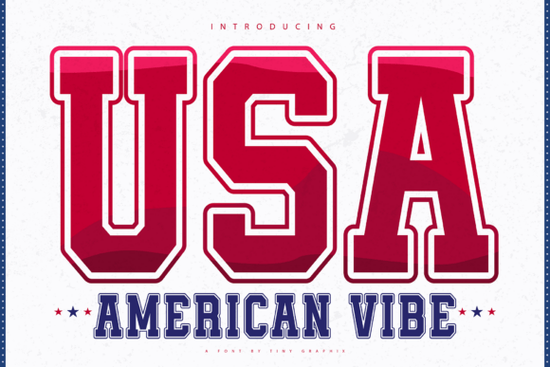
Looking for a typeface that screams red, white, and blue? American Vibe Font is a bold display typeface built for patriotic designs, Independence Day graphics, and Americana-themed projects. It blends collegiate athletic styling with festive holiday energy, giving your headlines the kind of punch that makes people stop scrolling. If you create designs for the 4th of July, sell patriotic apparel, or work on USA-themed branding, this font deserves a closer look.
What makes American Vibe Font different from other patriotic fonts?
A lot of display fonts try to capture a "patriotic" feel but end up looking generic. American Vibe takes a different approach by pulling from collegiate sports lettering and classic Americana signage. The result is a typeface that feels strong, nostalgic, and unmistakably American without being cartoonish.
The bold weight and wide letterforms make it ideal for:
- Headlines and hero text on posters or banners
- 4th of July t-shirt designs and apparel graphics
- Social media posts celebrating national holidays
- Event flyers for community celebrations or parades
- Print-on-demand products targeting patriotic audiences
If you're familiar with display fonts like Bold Super Font, you already know how much impact a heavy, confident typeface can add to a design. American Vibe carries that same energy but channels it through a distinctly American lens.
Who should use this font?
This typeface is a solid pick for a wide range of creatives:
Print-on-demand sellers Patriotic designs sell year-round, but they absolutely peak around Memorial Day, July 4th, Veterans Day, and election season. Having a reliable go-to font like American Vibe in your toolkit saves time and helps you produce designs that actually convert.
Small business owners If you run a local business in the U.S. and want to show community pride in your branding or seasonal promotions, this font gives your materials a professional, spirited look.
Crafters and hobbyists Making shirts for a family barbecue, decorations for a school event, or scrapbook pages for a summer celebration? American Vibe works beautifully for Cricut and Silhouette projects thanks to its clean, bold shapes.
Graphic designers Whether you're working on client projects or building your own design library, having a strong patriotic display font on hand means you're always ready when a relevant brief comes in.
American Vibe stands apart because it serves a very specific niche. It's not trying to be everything. It's designed for patriotic and Americana projects, and it does that job extremely well. That focus is actually an advantage when a client or customer sees the font, they immediately understand the theme.
What design styles pair well with American Vibe?
Since this is a bold display font, it works best for large text headlines, titles, and short phrases. For body copy or smaller text, pair it with a clean sans-serif or a simple serif font to keep things readable.
Design styles that complement American Vibe include:
- Distressed vintage looks Add a grunge texture overlay for a worn, retro Americana feel.
- Star and stripe motifs Classic patriotic elements pair naturally with this typeface.
- Wood and barn wood backgrounds Gives your design a rustic, farmhouse quality.
- Road trip and roadside sign aesthetics Think diner menus, highway signs, and national park posters.
As noted by Wikipedia's overview of Americana culture, the visual language of American identity draws heavily from mid-century design, sports culture, and national symbolism all of which this font reflects.
Is American Vibe Font worth adding to your collection?
If patriotic or Americana-themed design is any part of your workflow, the answer is yes. It's a niche font, but that niche is surprisingly large. Between national holidays, military appreciation events, sports seasons, and election cycles, there's no shortage of projects where a strong American-themed typeface comes in handy.
The key advantage is consistency. Instead of stretching a generic bold font to fit a patriotic theme, you start with a typeface that was built for it. That saves editing time and produces better results.